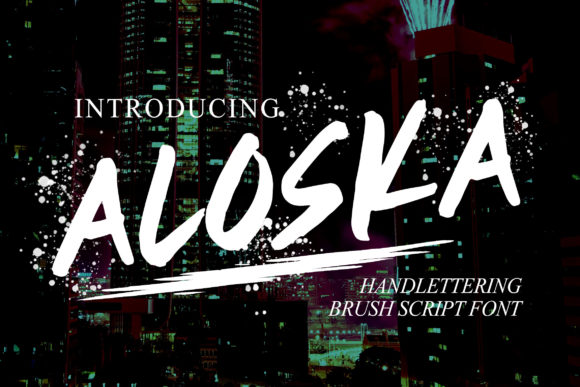
Aloska Font: The Ultimate Guide to this Stunning Handwritten Font
Are you looking for a font that can add a touch of elegance and sophistication to your designs? Look no further than Aloska Font. This simple and relaxed handwritten font has taken the design world by storm, and for good reason. With its unique and outstanding brush pen style, Aloska Font is incredibly versatile and can be used to create spectacular designs that will leave your audience in awe.
What is Aloska Font?
Aloska Font is a modern handwritten font that has been designed with the help of a unique and outstanding brush pen. The font features a simple and relaxed style that is perfect for a wide range of design projects, from branding and advertising to packaging and digital media.
One of the standout features of Aloska Font is its versatility. The font comes in a range of styles and weights, making it easy to use in a variety of different contexts. Whether you’re looking to create a bold and eye-catching headline or a more subtle and elegant body of text, Aloska Font has got you covered.
Key Features of Aloska Font
• Unique Brush Pen Style: Aloska Font has been designed with the help of a unique and outstanding brush pen, giving it a distinctive and eye-catching style.
• Simple and Relaxed: The font features a simple and relaxed style that is perfect for a wide range of design projects.
• Incredibly Versatile: Aloska Font comes in a range of styles and weights, making it easy to use in a variety of different contexts.
• Elegant and Sophisticated: The font has an elegant and sophisticated feel that is perfect for designs that require a touch of luxury and refinement.
What Can You Use Aloska Font For?
Aloska Font is incredibly versatile and can be used for a wide range of design projects, including:
• Branding and Advertising: Use Aloska Font to create eye-catching logos, taglines, and ad campaigns that will help your brand stand out.
• Packaging: The font is perfect for packaging designs that require a touch of elegance and sophistication.
• Digital Media: Use Aloska Font to create stunning digital media, including social media graphics, blog posts, and website headers.
• Print Media: The font is also perfect for print media, including brochures, flyers, and posters.
Benefits of Using Aloska Font
There are many benefits to using Aloska Font in your designs, including:
• Unique and Eye-Catching: The font has a unique and eye-catching style that will help your designs stand out.
• Elegant and Sophisticated: Aloska Font has an elegant and sophisticated feel that is perfect for designs that require a touch of luxury and refinement.
• Versatile: The font is incredibly versatile and can be used in a wide range of design projects.
• Easy to Read: Aloska Font is easy to read, even in smaller sizes, making it perfect for body text and other applications where readability is key.
Tips for Using Aloska Font
Here are a few tips for using Aloska Font in your designs:
• Use it Sparingly: While Aloska Font is incredibly versatile, it’s best to use it sparingly to avoid overwhelming your designs.
• Pair it with Other Fonts: The font pairs well with other fonts, so don’t be afraid to experiment with different combinations.
• Experiment with Different Sizes: Aloska Font looks great in a range of sizes, so experiment with different sizes to find the one that works best for your design.
• Use it to Create Contrast: Use Aloska Font to create contrast in your designs by pairing it with other fonts or using it in a bold and eye-catching way.
In conclusion, Aloska Font is a stunning handwritten font that is perfect for designers who want to add a touch of elegance and sophistication to their designs. With its unique and outstanding brush pen style, Aloska Font is incredibly versatile and can be used in a wide range of design projects. Whether you’re looking to create a bold and eye-catching headline or a more subtle and elegant body of text, Aloska Font has got you covered.